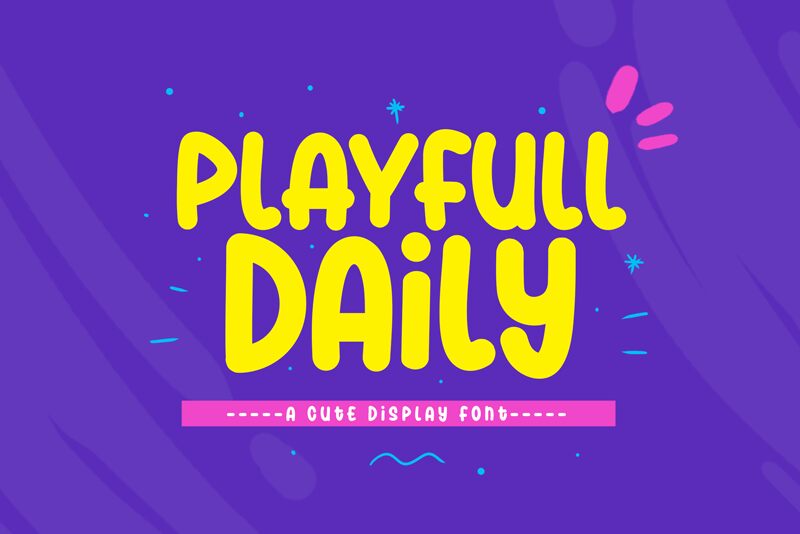
Playfull Daily
Playfull Daily font is a free bold cartoon display font by Khurasan. Its bubble-like rounded shapes give it an informal appearance and a whimsical aesthetic. In addition to its friendly feel, the font communicates an artistic style that would be hard to achieve otherwise. This hand-drawn typeface is suitable for invitation cards, social media posts, podcasts covers, slogans and other modern-day graphic design projects.
This wonderful lettering is also ideal for branding purposes where logos can benefit from it and any visual identity can as well get stronger. The applications continue with this exception typography being suitable for brochure designs, signboards, apparel products, badges creation…